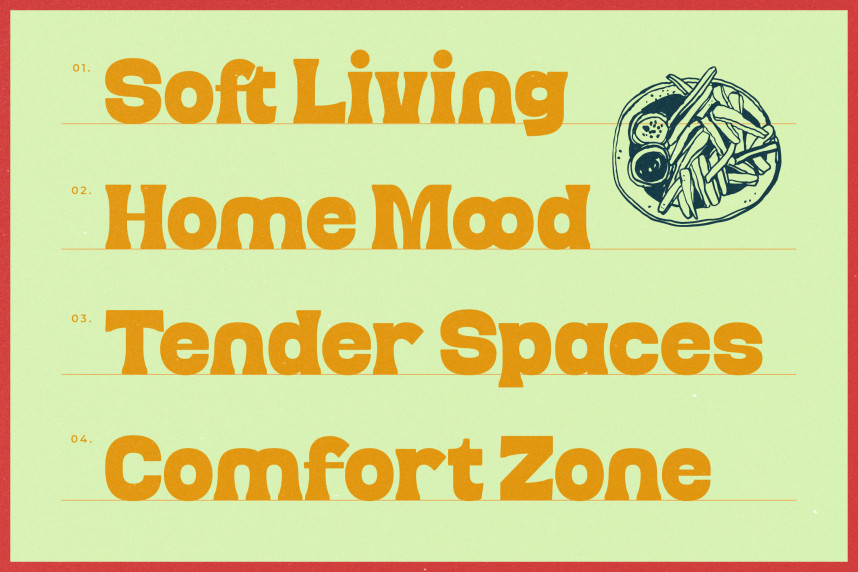
Master Riegaza – Curvy Retro Headline Font
Make an unforgettable visual statement with Master Riegaza – Curvy Retro Headline Font, a highly expressive typeface engineered for maximal impact. This display powerhouse combines dramatically heavy weight with smooth, inviting curves, evoking a nostalgic yet polished 70s aesthetic. It is specifically crafted to transform simple titles into bold statements, offering an instant sense of fun, confidence, and retro sophistication ideal for demanding visual environments where immediate recognition is paramount.
Elevate your typographic designs through exceptional customization options inherent in this robust package. Master Riegaza – Curvy Retro Headline Font includes a comprehensive set of 350 glyphs, featuring seven stylistic ligatures and twelve crucial alternates. These OpenType features empower designers to finely tune headlines, achieving a perfectly balanced, vintage-inspired finish that is both unique and highly readable at large sizes, delivering true typographic versatility.
Unlock new branding possibilities across diverse creative platforms. Master Riegaza – Curvy Retro Headline Font is the perfect choice for high-visibility commercial applications, including craft beer labeling, artisanal food packaging, vibrant poster design, and impactful magazine editorial spreads. Its dominant visual presence ensures strong brand recognition and recall, making it an essential asset for projects requiring a distinct, retro-modern, or groovy headline style.